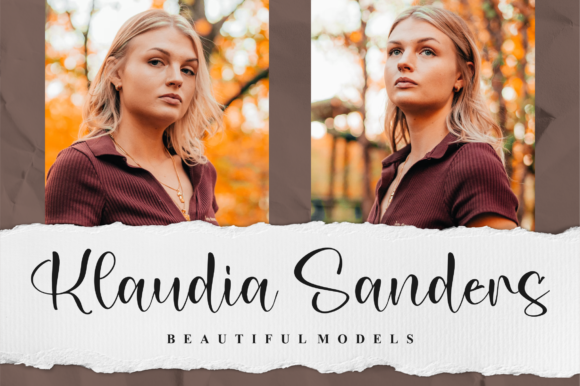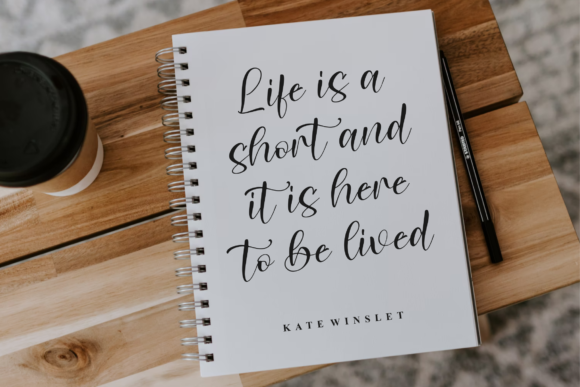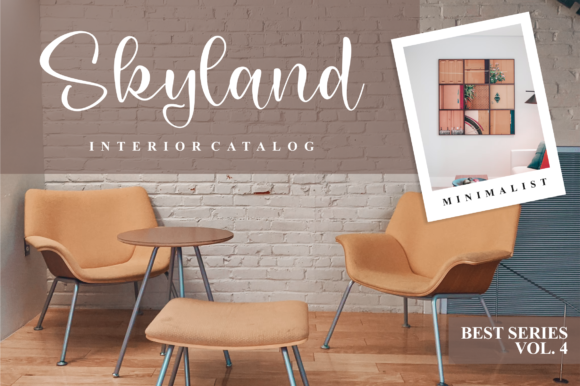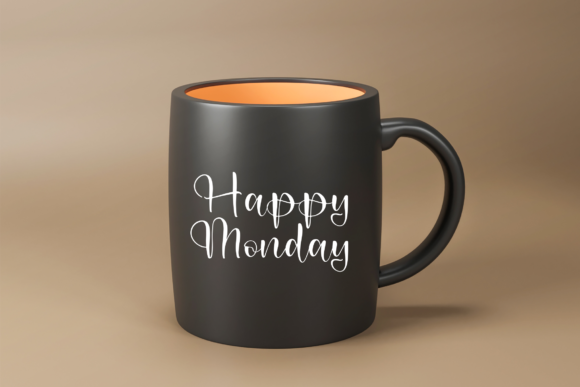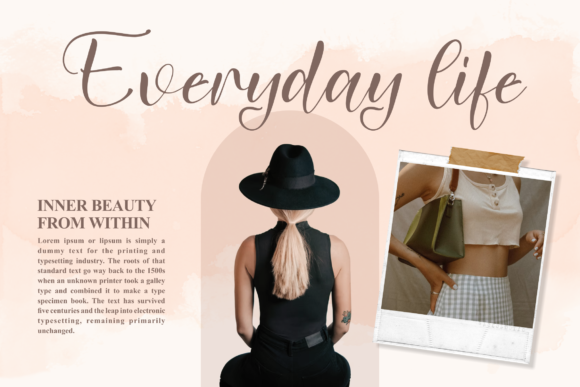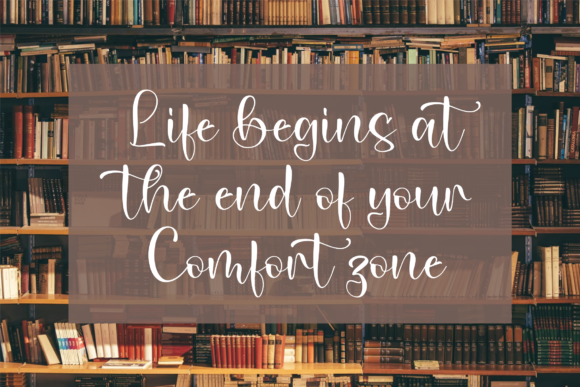
Introduction to Melanti Santika Font
As designers, we’ve all been there – staring at a blank canvas, waiting for inspiration to strike. The cursor blinks, and the mind goes blank. But what if that spark of creativity came in the form of a beautiful, handwritten font? Enter the Melanti Santika Font, a stunning addition to any design project.
This exquisite font boasts a unique feel and a luxurious impact that’s sure to elevate your creative project to the next level. With its PUA encoded design, accessing the amazing glyphs and ligatures is a breeze, making it a valuable resource for designers seeking high-quality typography.
Key Features of Melanti Santika Font
- Unique, elegant design with a transparent background, ideal for designers seeking a versatile design resource.
- Supports a wide range of languages, making it suitable for international design projects.
- Perfect for designers and artists working on creative projects, such as logos, typography, and graphic design.
Honest Review: Melanti Santika Font
I recently stumbled upon the Melanti Santika Font while searching for a unique design resource for my creative project. I was pleasantly surprised by the high quality and versatility of this font.
Here are some things that work well about the Melanti Santika Font: ✨
- Unique and stylish design that adds a touch of elegance to any project
- Transparent background, allowing for easy integration with any design element
- Works well in both digital and print projects, making it a versatile design resource
However, I did encounter some limitations with the Melanti Santika Font: ⚠️
- Not ideal for projects that require a wide range of font sizes, as the font can appear pixelated at smaller sizes
- May not be compatible with certain font management software
Overall, I’m impressed with the Melanti Santika Font and would recommend it for designers looking for a high-quality, unique font for their creative projects.
The Melanti Santika Font is perfect for creative projects that require a unique and eye-catching look. Some common use cases include logo design, branding, and marketing materials. The font’s high-quality design and free download feature make it an excellent choice for designers and non-designers alike.
Is the Melanti Santika Font suitable for a creative project?
Yes, the Melanti Santika Font is a versatile and highly adaptable design resource that can be used for a wide range of creative projects, from branding and advertising to digital publishing and web design. Its high-quality design and transparent background make it an ideal choice for designers looking to create visually stunning and professional-looking designs.